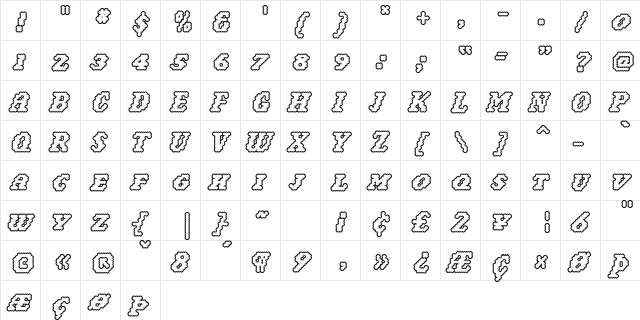
NarlyOutline Font Preview
NarlyOutline Outline
Design Context for NarlyOutline Typeface
NarlyOutline brings ornamental detail and strong personality to headlines and identities, where visual impact matters more than quiet functionality.
Font Pairing: Pair with a clean neutral sans-serif for body copy to let NarlyOutline's character lead without overwhelming the composition.
Pro Tip: Treat NarlyOutline as the centrepiece of your typographic hierarchy. One strong heading set in a decorative face can carry an entire layout.